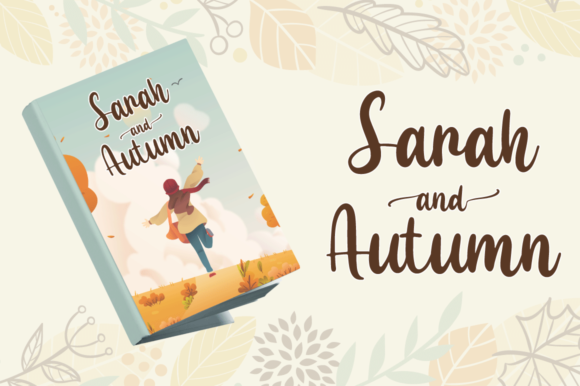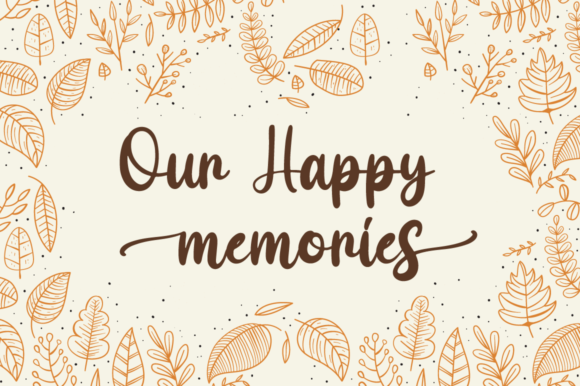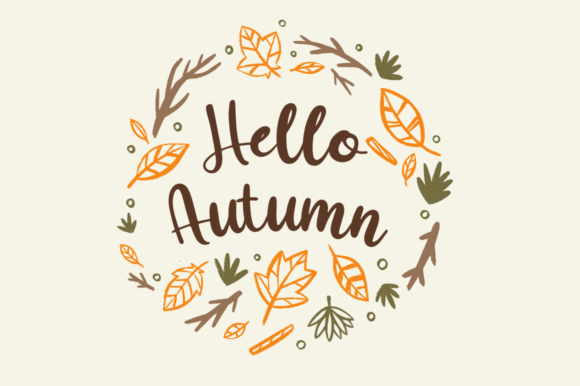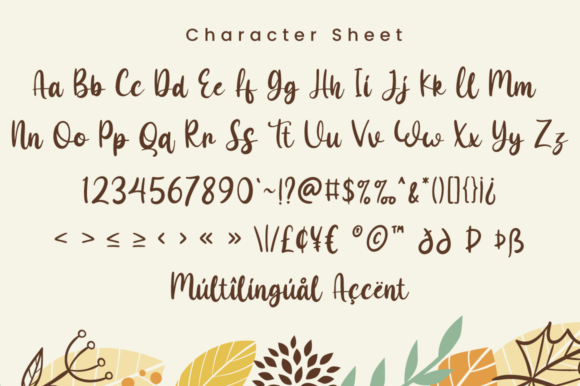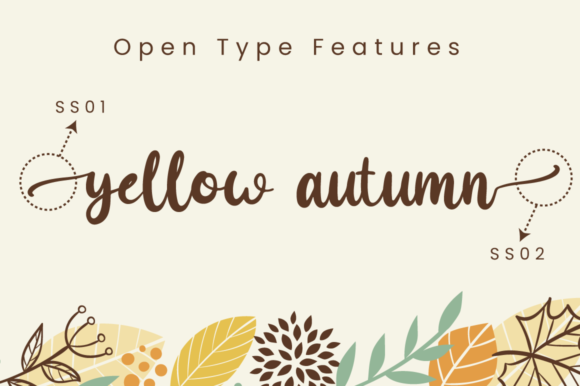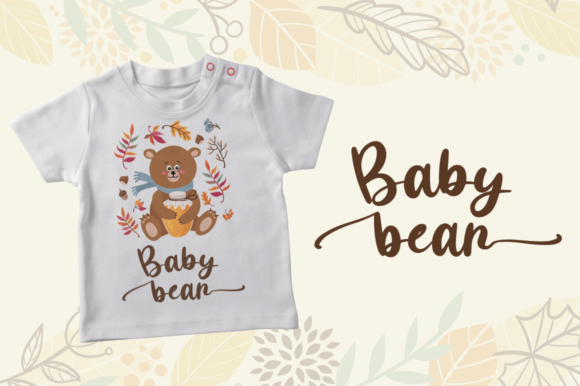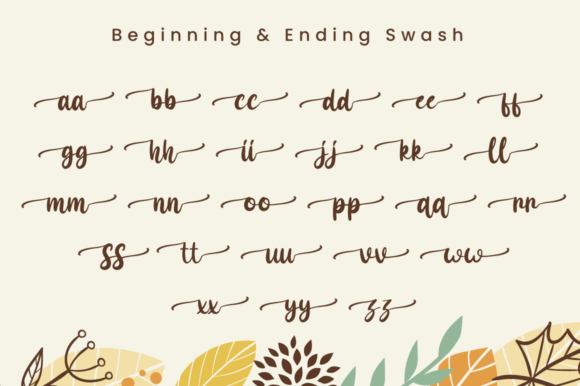
Maple Memories Font
About Maple Memories Font
Introducing “Maple Memories,” an incredibly distinct, delicate, and timeless handwritten font that exudes elegance and charm. With its captivating style, “Maple Memories” becomes the perfect choice for a wide range of design projects. Whether you’re creating enchanting wedding invitations, heartfelt thank you cards, inspiring quotes, warm greeting cards, unique logos, or professional business cards, this font will add a touch of sophistication and beauty to every design that craves a handwritten touch.
Imagine using “Maple Memories” to craft exquisite wedding invitations that evoke a sense of romance and nostalgia, setting the stage for a memorable celebration of love.
For thank you cards, “Maple Memories” adds a personal and heartfelt touch, conveying gratitude with a touch of elegance and sincerity.
In quotes and greeting cards, “Maple Memories” infuses warmth and charm, captivating the reader and leaving a lasting impression.
For logos and branding, “Maple Memories” becomes a symbol of refinement and sophistication, elevating your brand identity to a new level of distinction.
With its timeless and delicate style, “Maple Memories” is a versatile font that can enhance any design seeking an elegant and handwritten appeal.
In conclusion, “Maple Memories” is more than just a font; it’s a journey through cherished moments and heartfelt expressions. With its distinct and delicate style, “Maple Memories” becomes a cherished companion for all your design projects. Embrace the captivating allure of “Maple Memories” and watch as your creations come alive with elegance and grace. Fall in love with the timeless beauty of “Maple Memories,” the handwritten font that adds a special touch to every design seeking a touch of handwritten nostalgia and sophistication.